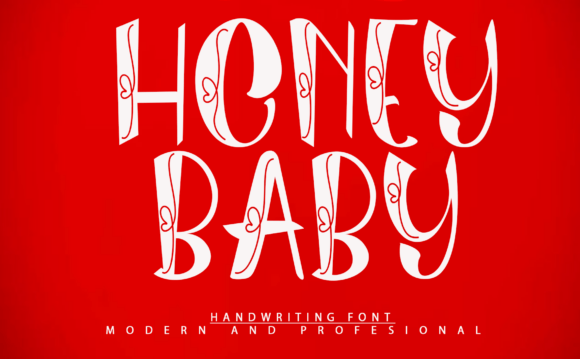
The Perfect Font for Love
Who hasn’t been there – staring at a blank page, struggling to find the perfect words to express your feelings? You want something that speaks straight to the heart, something that conveys the emotions you’re trying to convey. That’s exactly when a special font comes to the rescue. Introducing the Honey Baby Font, a charming handwritten font that adds a touch of romance to any design.
This beautiful font is designed to add a playful, whimsical feel to your projects, making it perfect for love-themed projects, invitations, and anything that needs a personal touch. Whether you’re a designer, artist, or simply someone who loves to create, the Honey Baby Font is a valuable asset to have in your toolkit. Its unique combination of stylish letters and playful heart details makes it stand out from the crowd, adding a touch of sweetness to any design.
- Unique Characteristics: This font features a unique, playful script style with a mix of cursive and handwritten elements.
Honey Baby Font Review
As a designer, I was excited to dive into the “Honey Baby Font” and see what it had to offer. Here’s my honest review:
- Cute and playful feel: The font is perfect for creating a whimsical and endearing atmosphere in branding, advertising, or packaging design.
- High-quality glyphs: The font includes a wide range of characters, including numbers, punctuation, and special characters, making it suitable for various applications.
- Good legibility: The font is easy to read, even at smaller sizes, which is essential for effective communication in design.
- Limited font weights: The font only comes in a few weights, which may limit its versatility in certain design situations.
- No italics or bold-italic: The font lacks these essential styles, which can make it less suitable for formal or technical applications.
- Not suitable for body text: The font’s playful feel may not be ideal for large blocks of text, making it more suitable for headlines or short quotes.
The “Honey Baby Font” is a charming and well-crafted font that excels in creating a whimsical atmosphere. While it has some limitations, it’s perfect for designers looking for a playful, high-quality font for specific design projects.
Tips for Getting the Most Out of Honey Baby Font
Use Honey Baby Font for designs that require a playful, whimsical touch. This font is perfect for:
- Children’s book covers
- Wedding invitations
- Food packaging labels
Remember to pair Honey Baby Font with a clean and simple background to make it stand out.
Alternatives to Honey Baby Font
Great Vibes is a modern, elegant script font that works well for titles, headings, and quotes. It has a playful yet sophisticated feel to it, making it suitable for a wide range of designs. Great Vibes is more cursive and fluid compared to Honey Baby Font, which has a more childish and bubbly feel.
Literata Font
Literata is a beautiful, elegant script font that is perfect for titles, headings, and body text. It has a refined and sophisticated feel to it, making it suitable for luxury brands, fashion designs, and high-end publications. Literata is more refined and polished compared to Honey Baby Font, which has a more playful and whimsical feel.